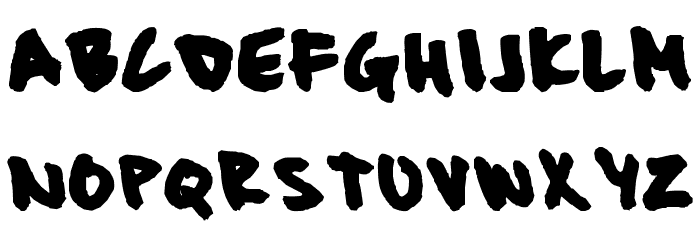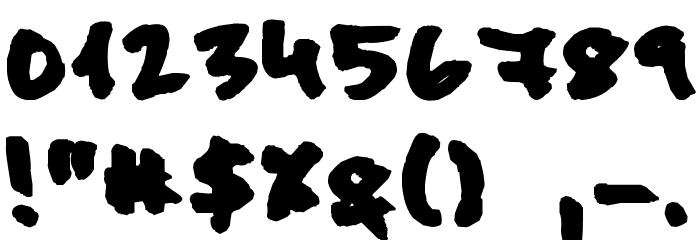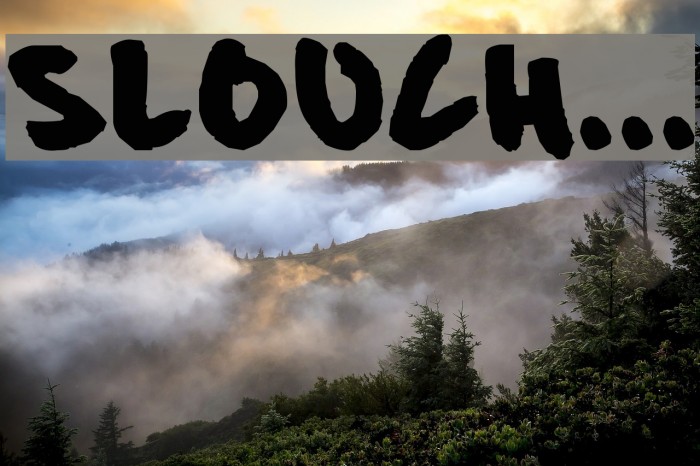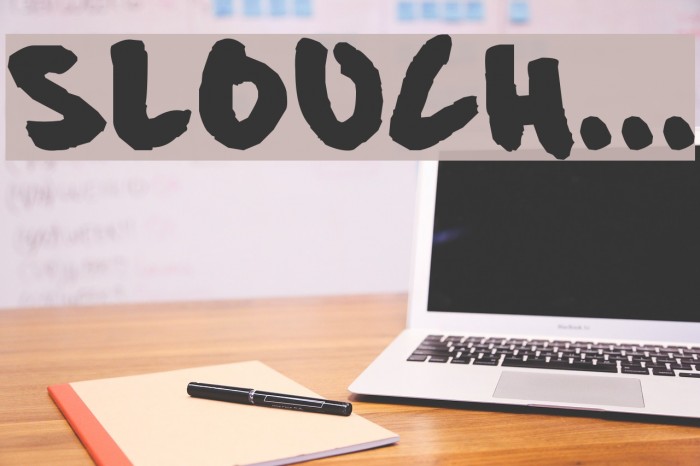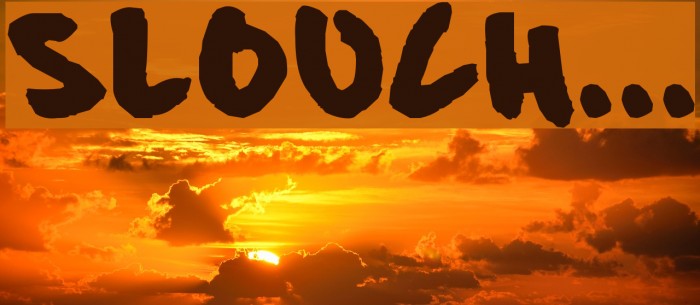
Slouch... Font
This font features a bold and expressive style, characterized by its thick, brush-like strokes that convey a sense of energy and movement. The letters are slightly irregular, giving it a hand-drawn appearance that adds a personal touch. The uppercase and lowercase letters maintain a consistent weight, while the numerals and special characters complement the overall aesthetic. This font's playful and dynamic nature makes it suitable for creative and informal applications.
A bold, brush-style font with an energetic and hand-drawn appearance.
- Proposed Projects: Ideal for posters, branding, social media graphics, and any project requiring a lively and informal touch.